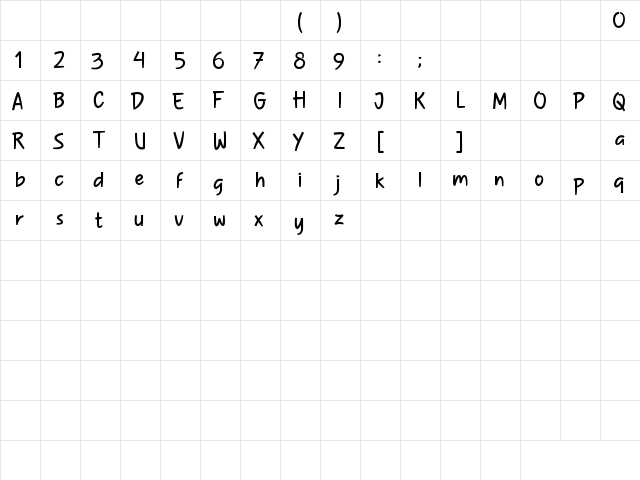
Xurabi Ema 1.0 Regular
| Designer | Haris Gunawan |
Design Context for Xurabi Ema 1.0 Typeface
Xurabi Ema 1.0 takes a measured approach to typography — its balanced proportions and neutral character make it a reliable workhorse for both digital and print work.